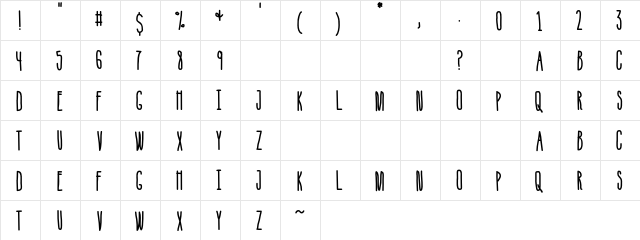
Ice Cream Sandwich Regular
Design Context for Ice Cream Sandwich Typeface
Ice Cream Sandwich is a composed and adaptable typeface that performs quietly and consistently across a wide range of design contexts.